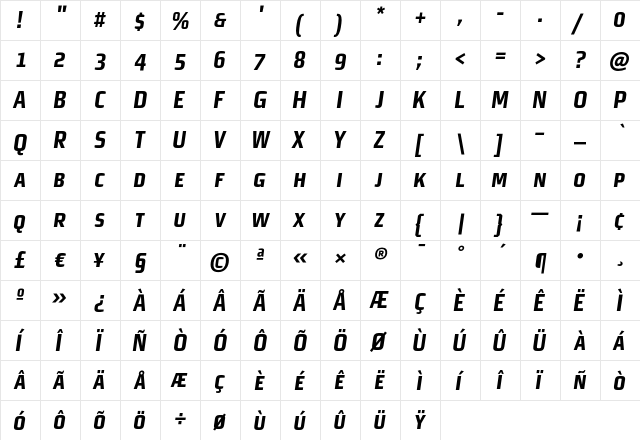
MorganSansCond Bold ItalicExpert Font Preview
Design Context for MorganSansCond Typeface
MorganSansCond is a composed and adaptable typeface that performs quietly and consistently across a wide range of design contexts. The dynamic lean of this cut emphasises speed and emphasis in any layout. Its bold stroke weight gives it real presence on the page. Its narrow stance lets it pack a punch even in space-constrained designs.
Pro Tip: Try MorganSansCond for annotation and caption copy alongside an upright companion — the contrast in angle creates a dynamic but ordered typographic system.